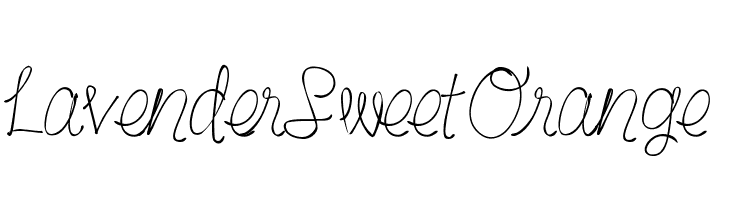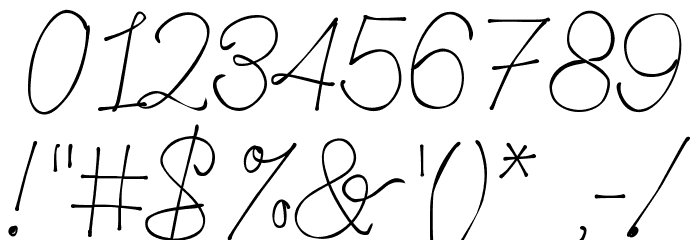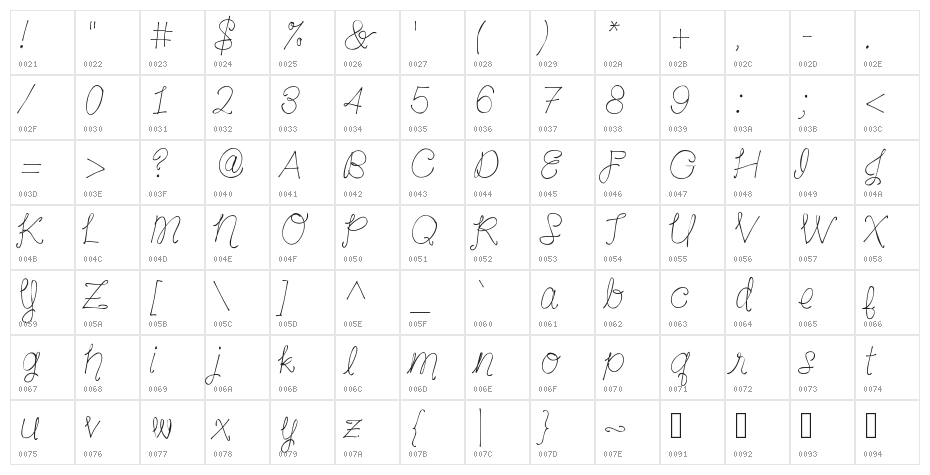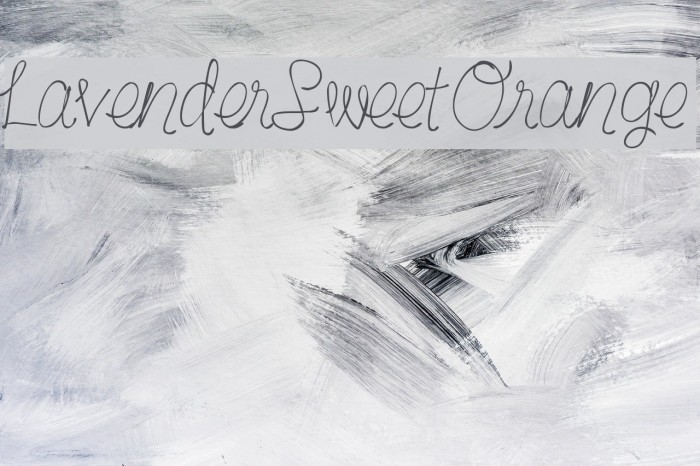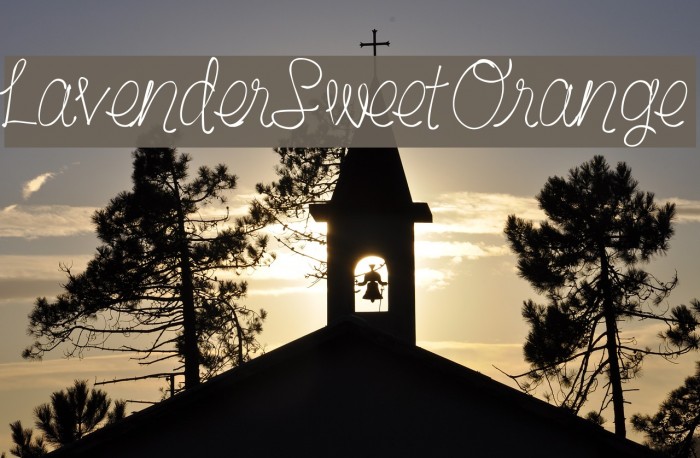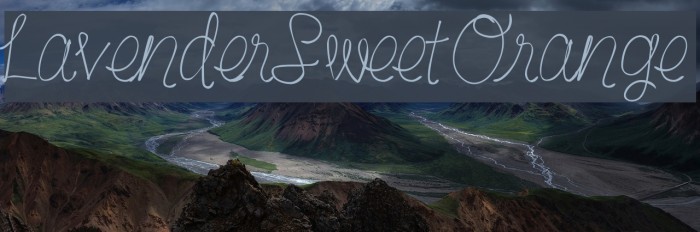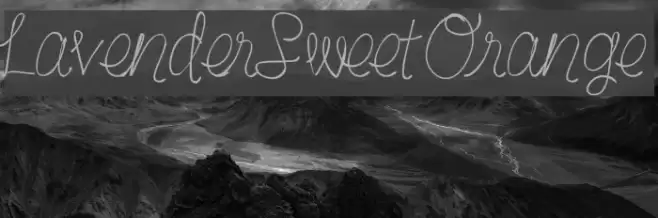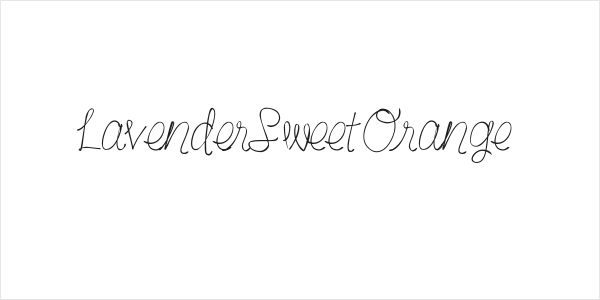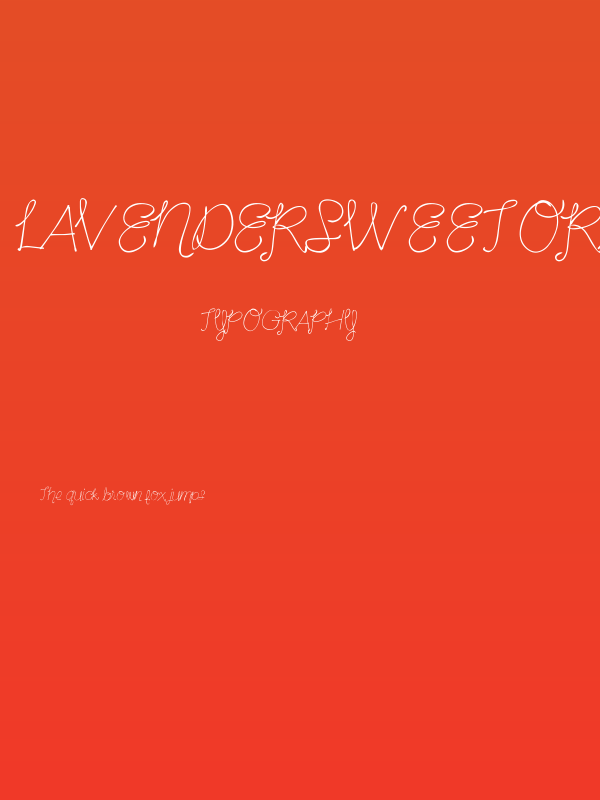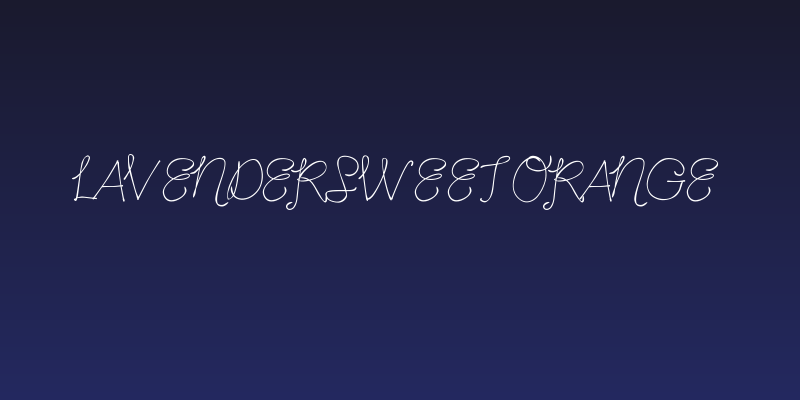
LavenderSweetOrange Font
LavenderSweetOrange Description
This font features a whimsical and elegant script style, characterized by its flowing, interconnected letters and delicate curves. The uppercase letters are tall and slender, with playful loops and swirls that add a touch of sophistication. The lowercase letters maintain a consistent style, with smooth transitions and a slightly more compact form. Numbers are clear and legible, following the same graceful aesthetic. Special characters are thoughtfully designed, maintaining the overall fluidity and charm. This font exudes a sense of creativity and elegance, making it ideal for projects that require a personal and artistic touch.
| Use Case | Logos, Invitations, Artistic designs |
| Proposed Projects | Ideal for wedding invitations, greeting cards, branding projects, and artistic designs. |